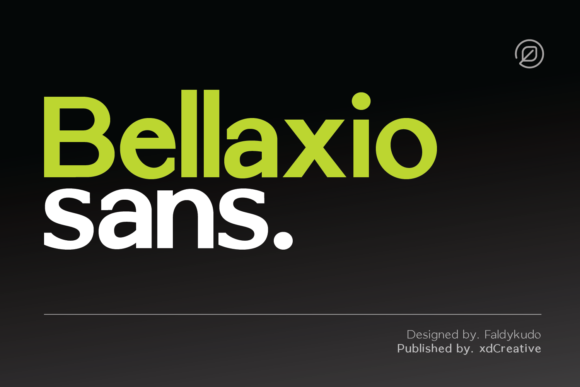
Have you ever found yourself staring at a blank canvas, waiting for inspiration to strike? That moment when everything clicks and your creative ideas start flowing – it’s a beautiful feeling. For many designers, it’s the moment when the right font makes all the difference. That’s where Bellaxio Sans Font comes in – a minimal and neat sans serif font designed to elevate your projects and make them truly stand out.
Bellaxio Sans Font is more than just a typeface; it’s a versatile tool that can be paired with a wide range of design styles and themes. Its clean lines, simple shapes, and elegant proportions make it an excellent choice for anyone looking to add a touch of sophistication to their work. Whether you’re a seasoned designer or just starting out, Bellaxio Sans Font is an invaluable addition to your creative toolkit.
Bellaxio Sans Font Key Features
- Font Family: Bellaxio Sans
- Unique Characteristics: Bellaxio Sans features a clean, modern sans-serif design with subtle rounded edges and a high x-height for improved readability
Bellaxio Sans Font Review
As a designer, I’ve had the chance to play around with the Bellaxio Sans Font, and here’s my honest review. ✨ One thing that really stands out is the font’s modern and sleek aesthetic. It’s perfect for creating a clean and minimalist look that’s sure to grab attention. I also appreciate the wide range of weights available, which makes it easy to customize and find the perfect fit for your project.
Another great feature is the font’s legibility. It’s easy to read, even at smaller font sizes, which is a must-have for any font in my book. Additionally, the font is highly versatile and can be used for a variety of purposes, from digital interfaces to print materials.
However, I do have a few concerns about the font’s limitations. ⚠️ One issue I’ve noticed is that the font can be a bit too simple at times, which may make it difficult to add visual interest to certain designs. Another issue is that the font may not be suitable for projects that require a more traditional or classic look.
Overall, I’d say that Bellaxio Sans Font is a solid choice for designers looking for a modern and clean font. While it may have some limitations, its versatility and legibility make it a great option for a wide range of projects.
Pros and Cons:
- ✨ Modern and sleek aesthetic
- ✨ Wide range of weights available
- ✨ Highly legible
- ✨ Versatile and can be used for various purposes
- ⚠️ May be too simple at times
- ⚠️ May not be suitable for traditional or classic projects
Bellaxio Sans Font Practical Application Guide
For optimal use, pair Bellaxio Sans with a clean and minimalistic design. Use it for headings, titles, and short paragraphs. It’s ideal for modern and professional-looking documents, presentations, and websites.